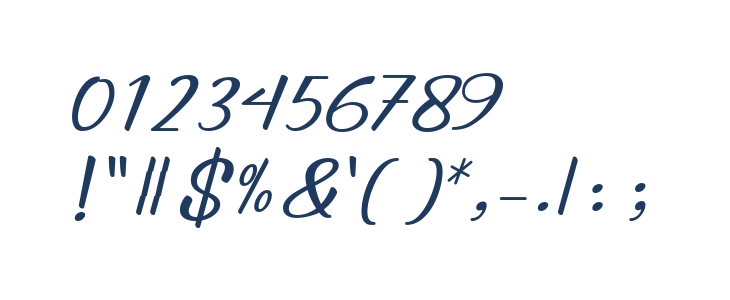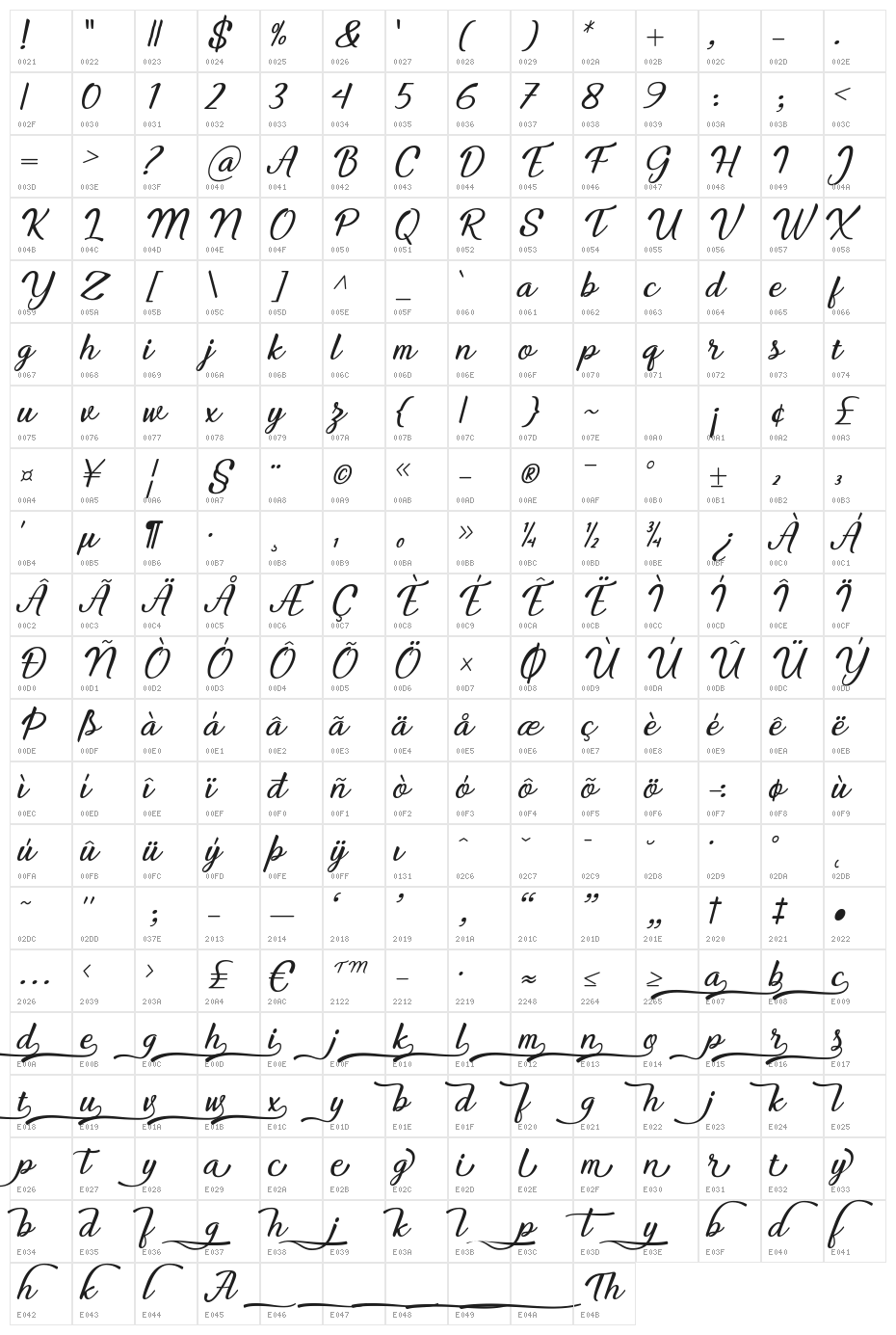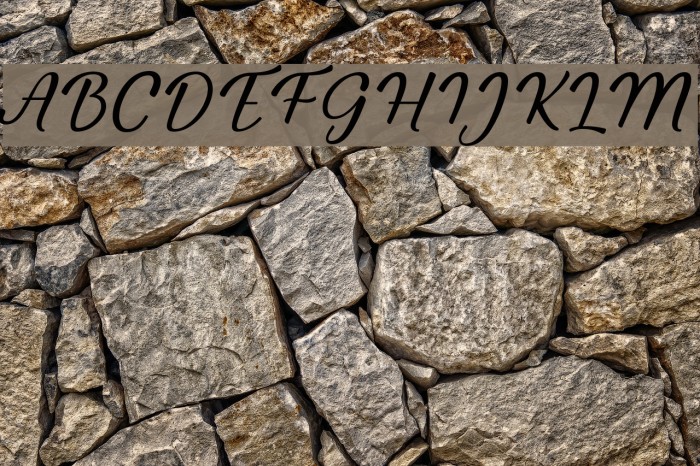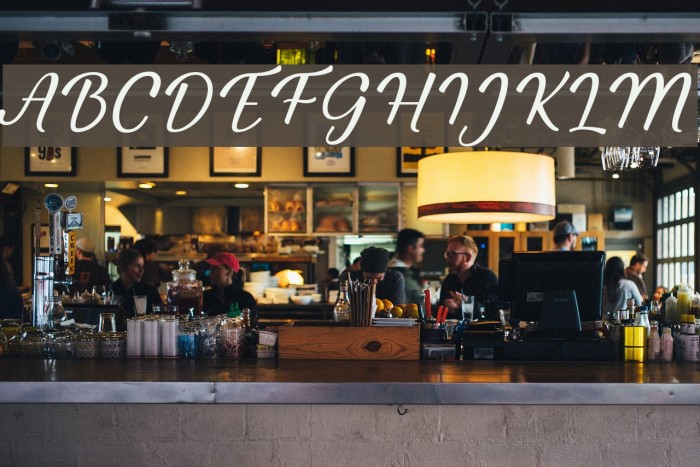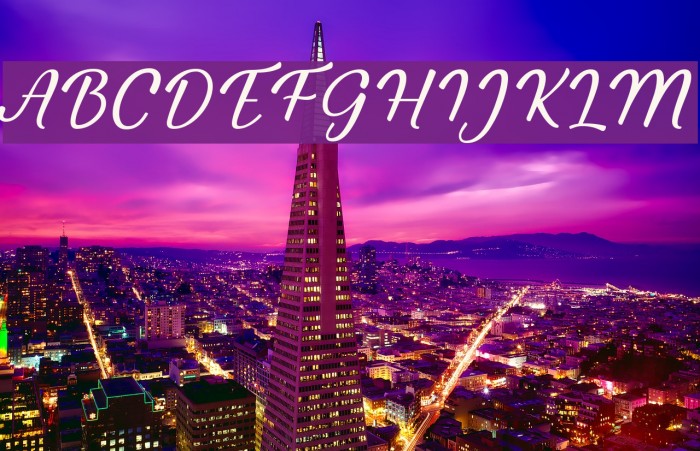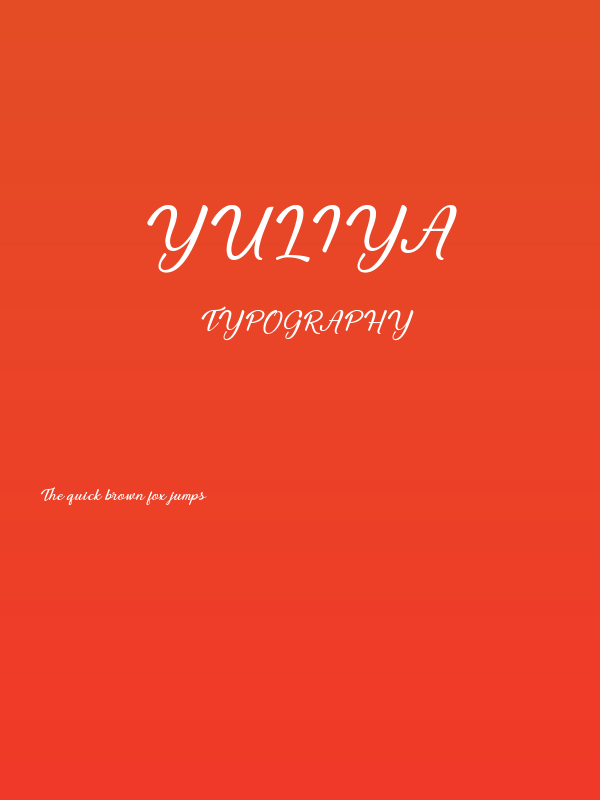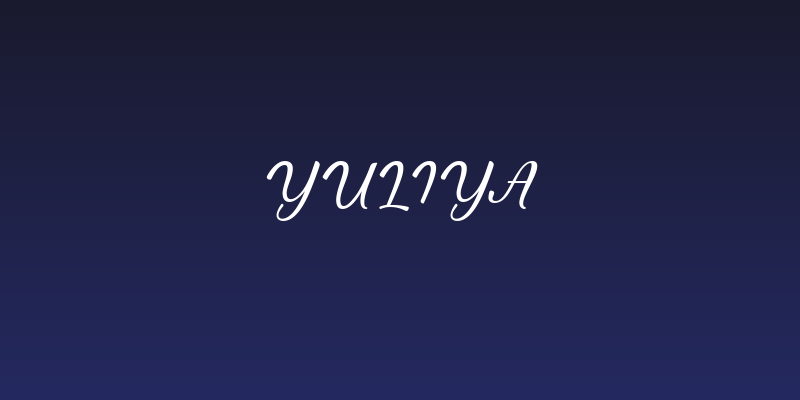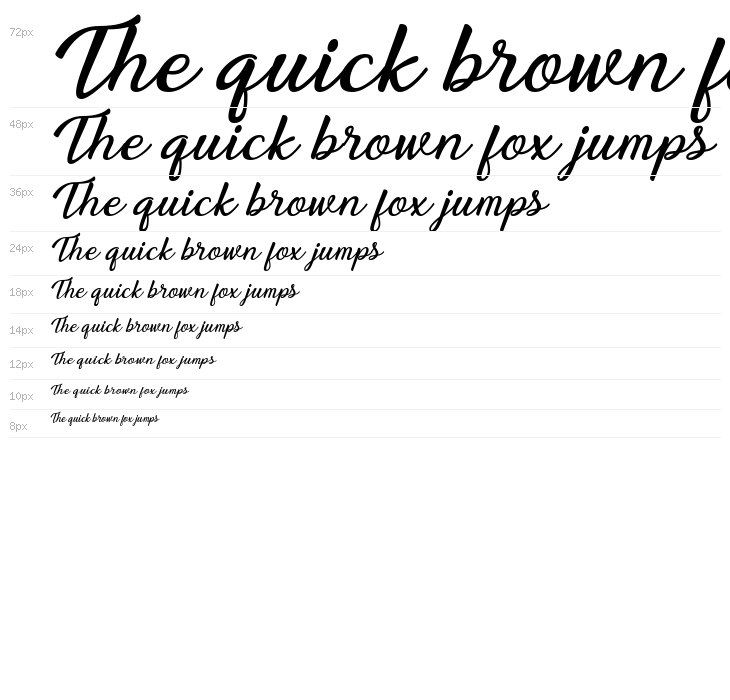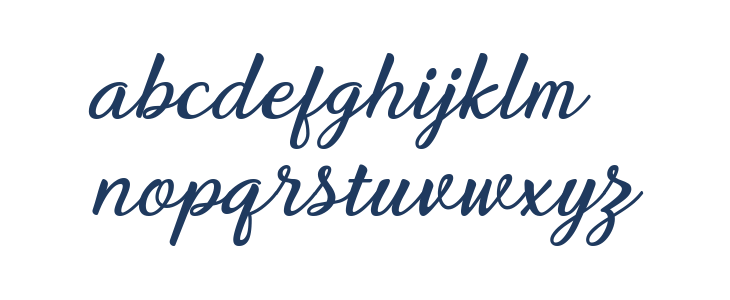
Yuliya Font
Yuliya Description
This font exudes a classic and elegant script style, characterized by its flowing and connected letterforms. The uppercase letters are slightly more formal, with graceful curves and a consistent slant that adds a sense of movement. The lowercase letters maintain a harmonious flow, with smooth transitions between each character. The numerals are designed to complement the overall script style, featuring similar curves and a cohesive look. Special characters are thoughtfully integrated, maintaining the font's elegant aesthetic. This font is perfect for projects that require a touch of sophistication and style.
| Overall Style | Classic |
| Use Case | Logos, Invitations, Stationery |
| Proposed Projects | Ideal for wedding invitations, elegant branding, personal stationery, and upscale packaging. |